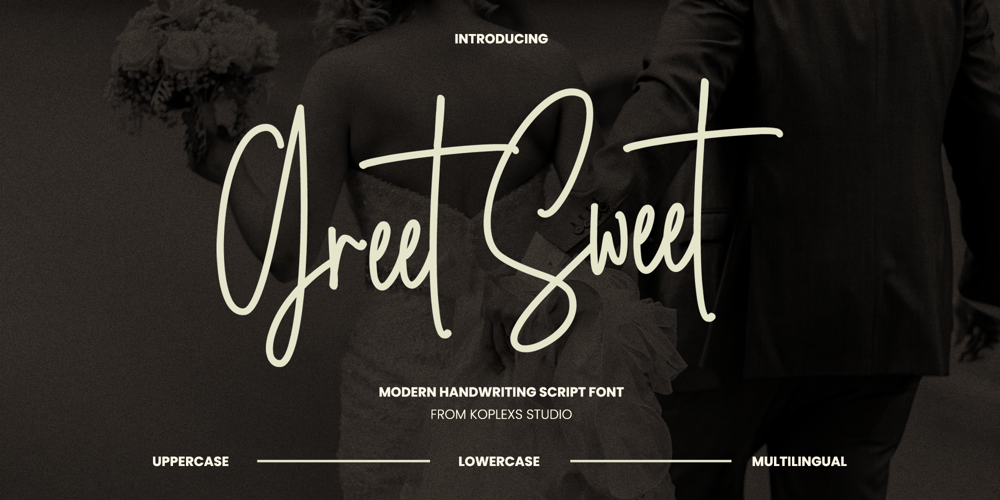
Great Sweet Font Family was designed by Ahmad Muslimin and published by Koplexs Studio. Great Sweet contains 1 styles and family package options. Greet Sweet – Modern Handwriting Script FontGreet Sweet Font is a captivating and contemporary typeface that effortlessly combines the charm of handwritten script with a modern aesthetic. This font is meticulously crafted to convey a sense of warmth and friendliness, making it an ideal choice for a wide range of creative projects.With its fluid strokes and graceful curves, Greet Sweet exudes a playful elegance that adds a touch of sophistication to any design. The font’s versatility shines through in its ability to adapt seamlessly to various contexts, be it for invitations, branding, advertising, or social media content.Designed with precision and attention to detail, Greet Sweet ensures legibility while maintaining a distinctive and artistic flair. Its modern handwriting style adds a personal touch, creating a connection with the audience and leaving a lasting impression.Whether used in print or digital media, Greet Sweet stands out as a unique and eye-catching choice, elevating the visual appeal of your projects. Embrace the contemporary charm of Greet Sweet to infuse your designs with a blend of modernity and handwritten authenticity.